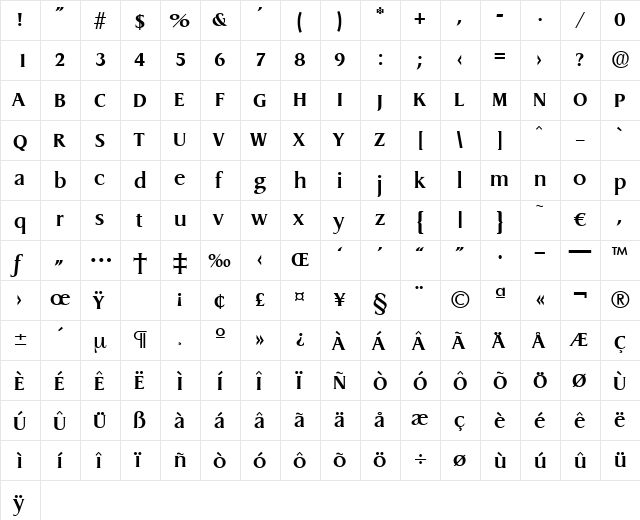
Dragon-DemiBold Regular
Design Context for Dragon-DemiBold Typeface
Dragon-DemiBold takes a measured approach to typography — its balanced proportions and neutral character make it a reliable workhorse for both digital and print work. The heavy weight commands attention and anchors typographic hierarchies.